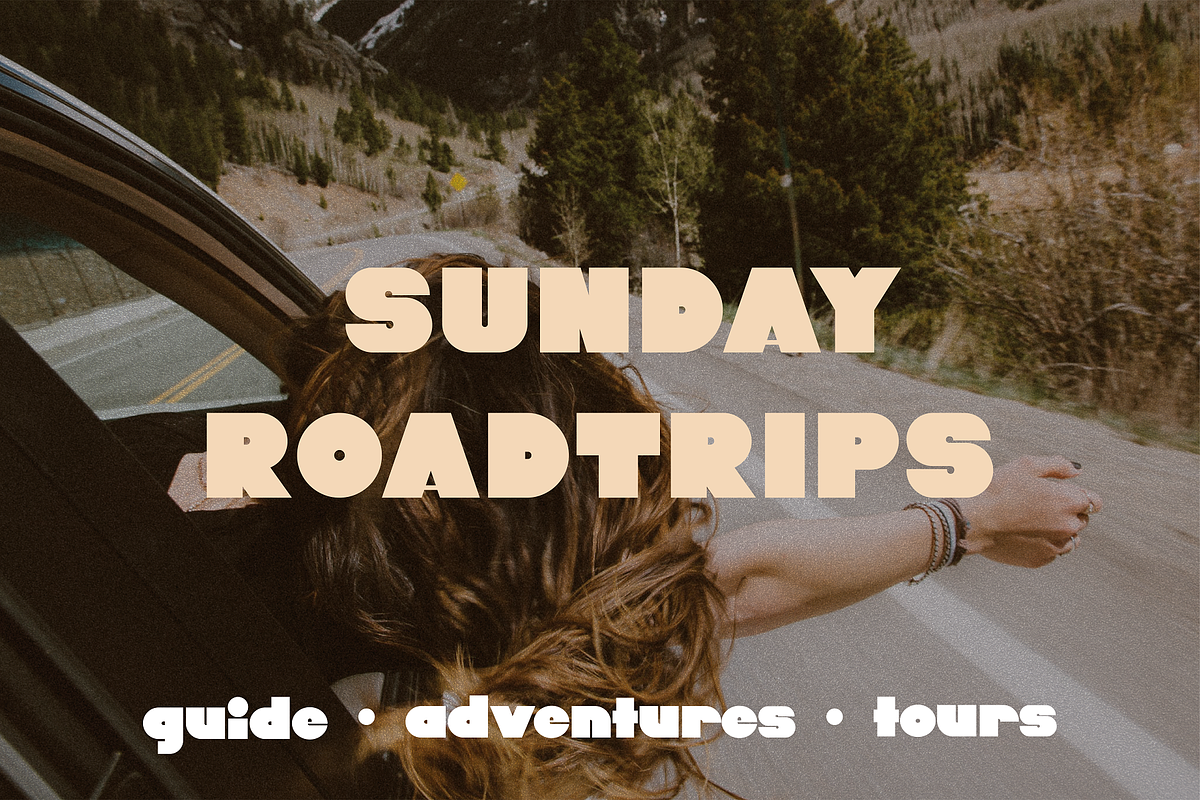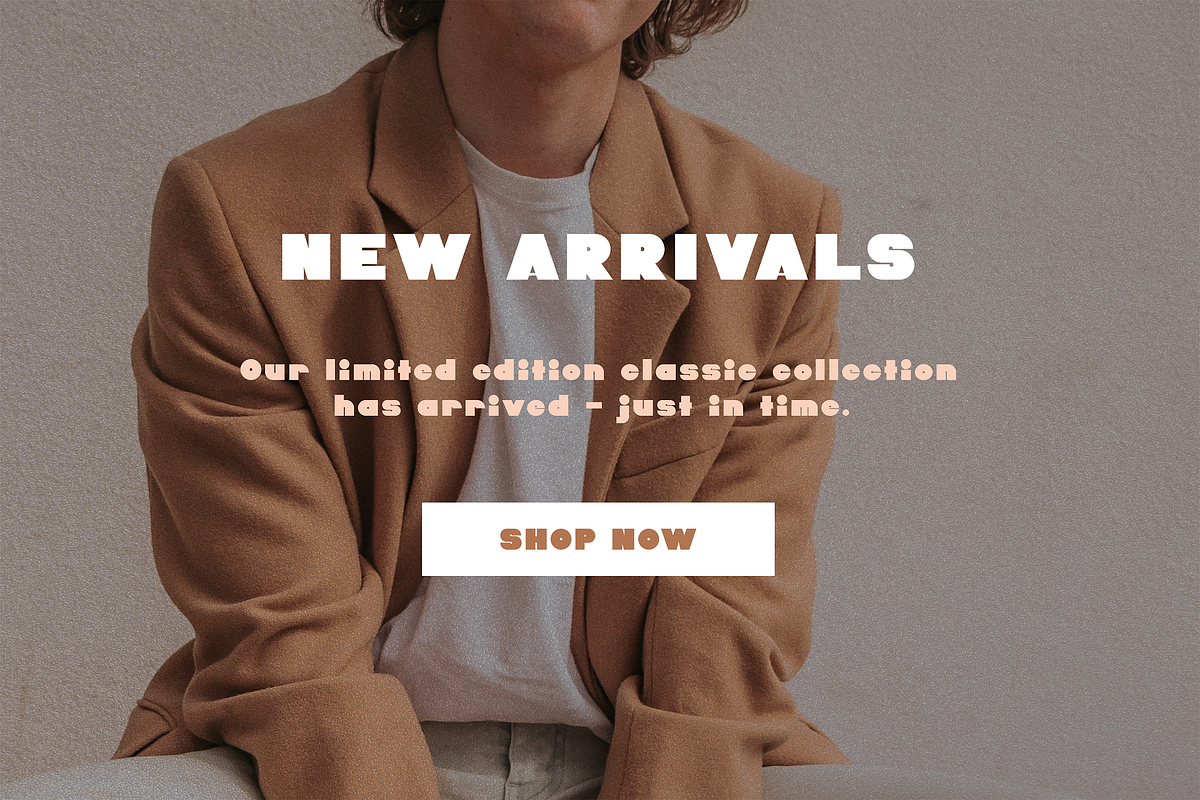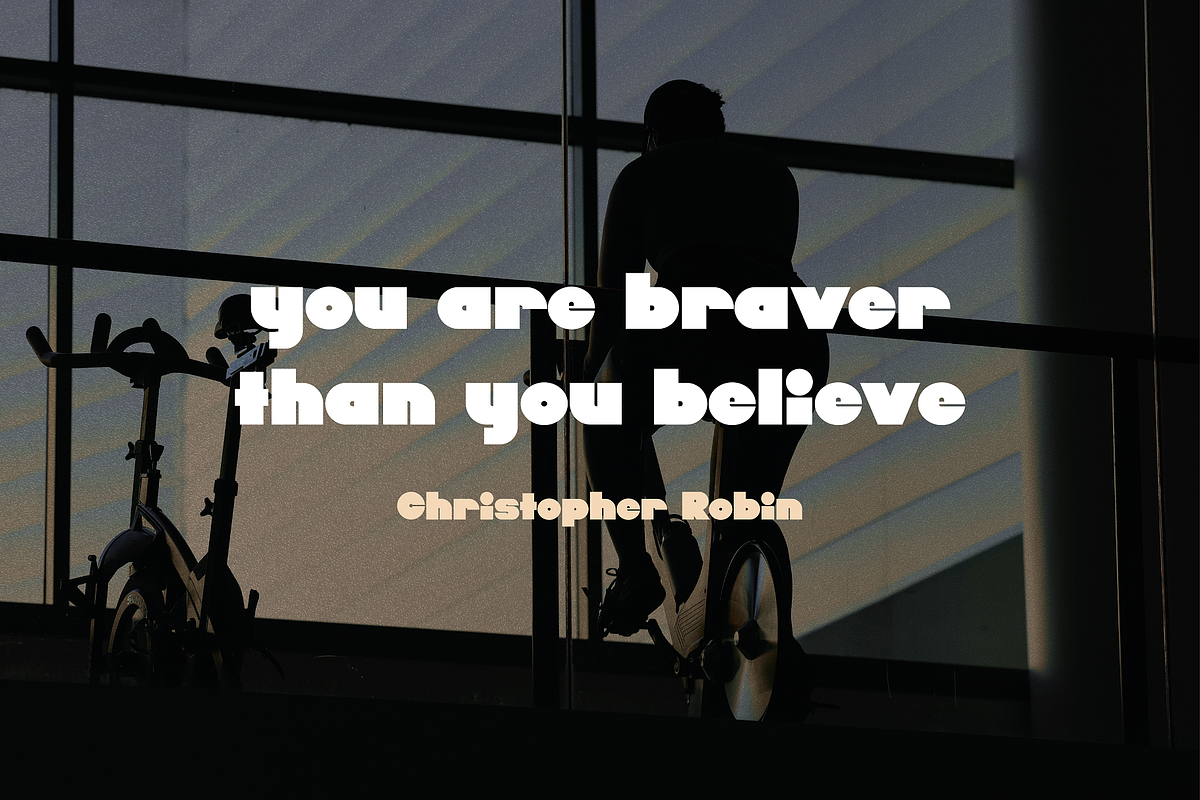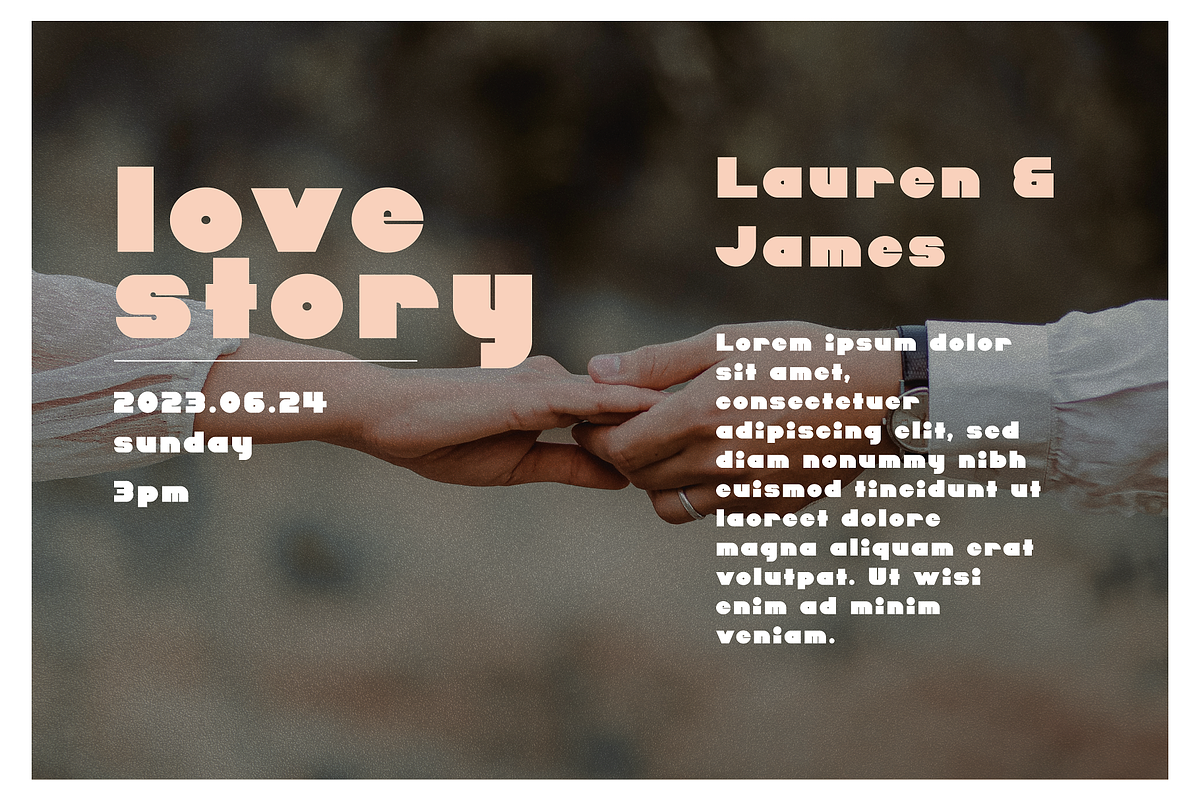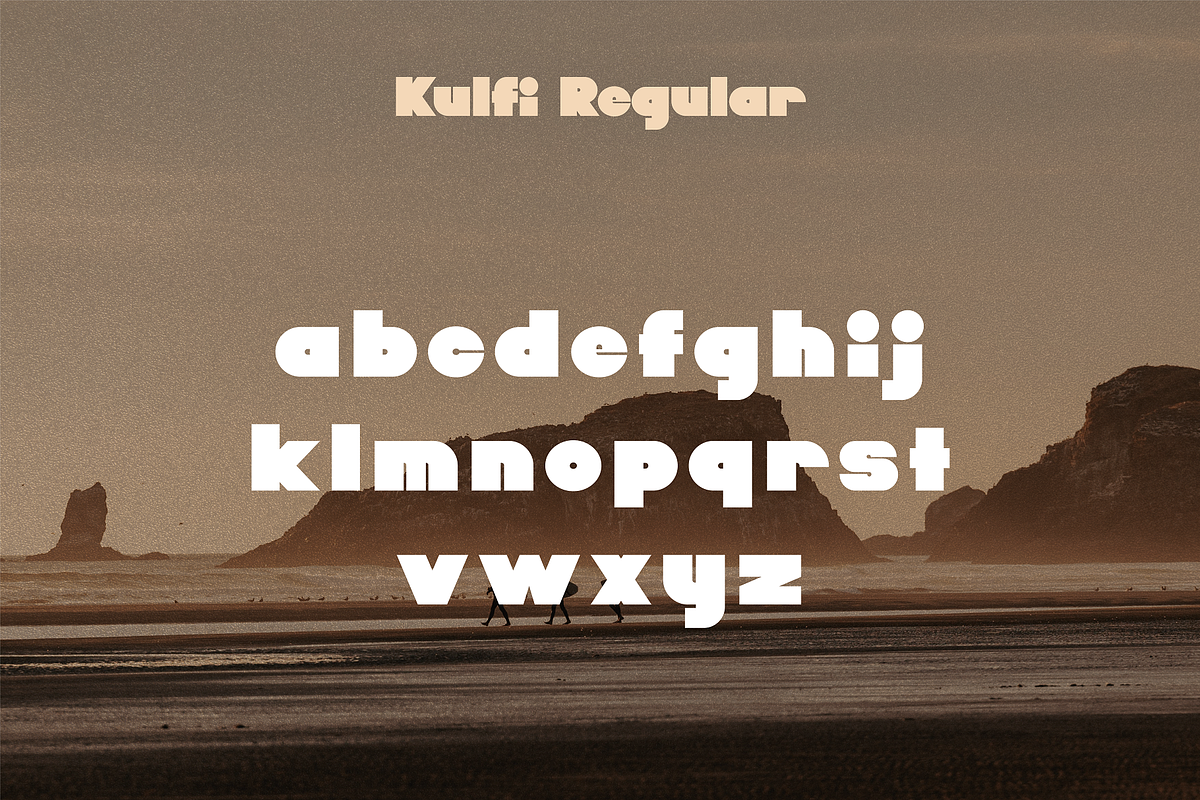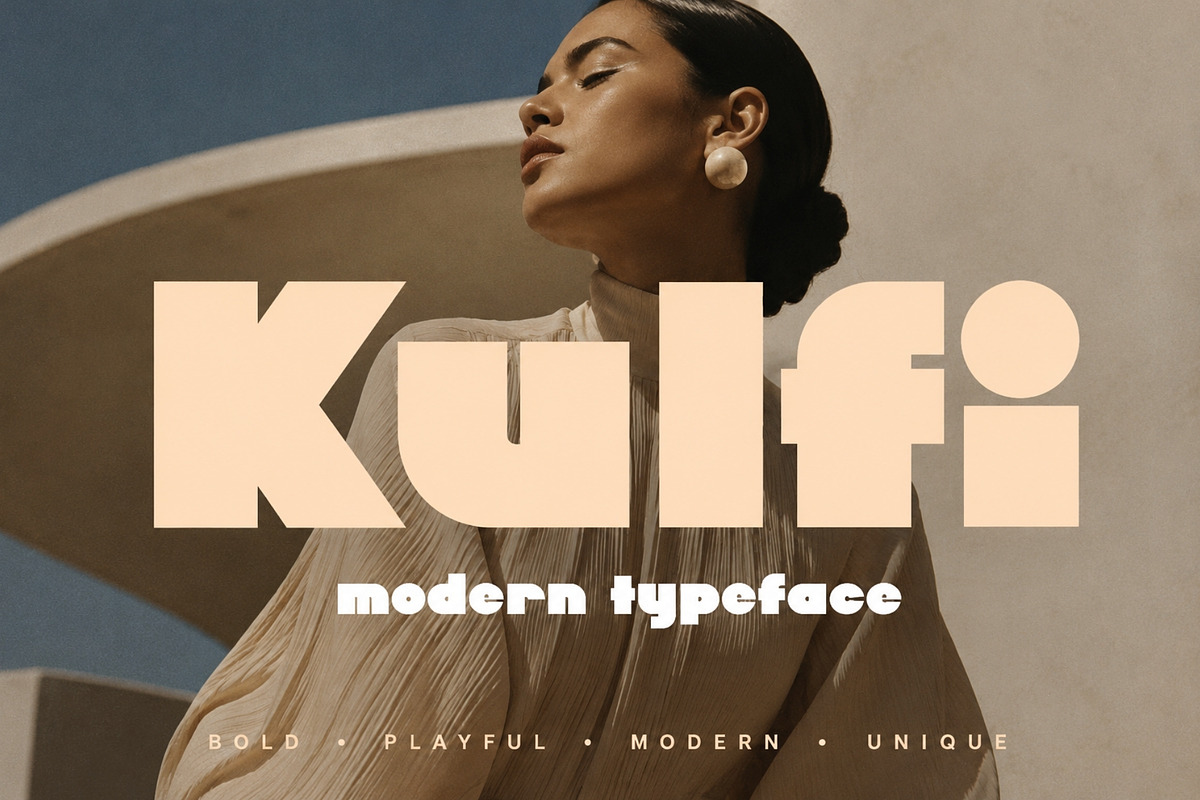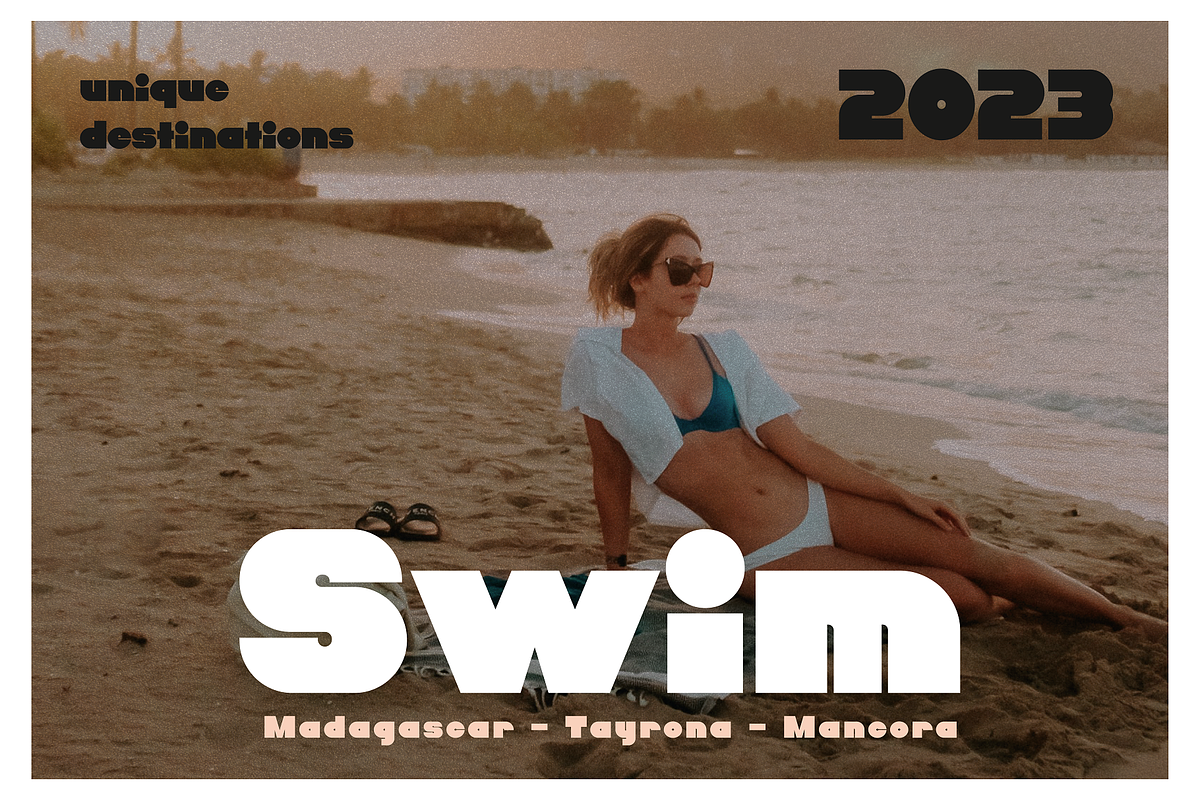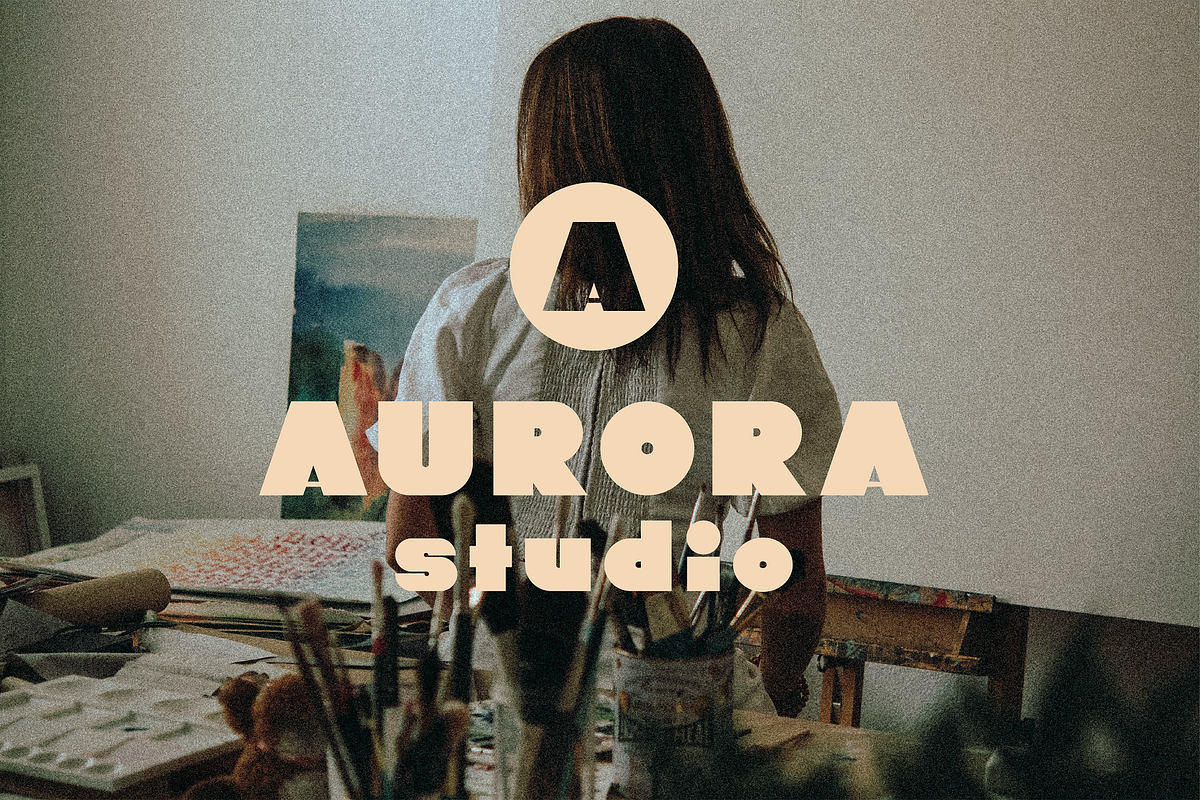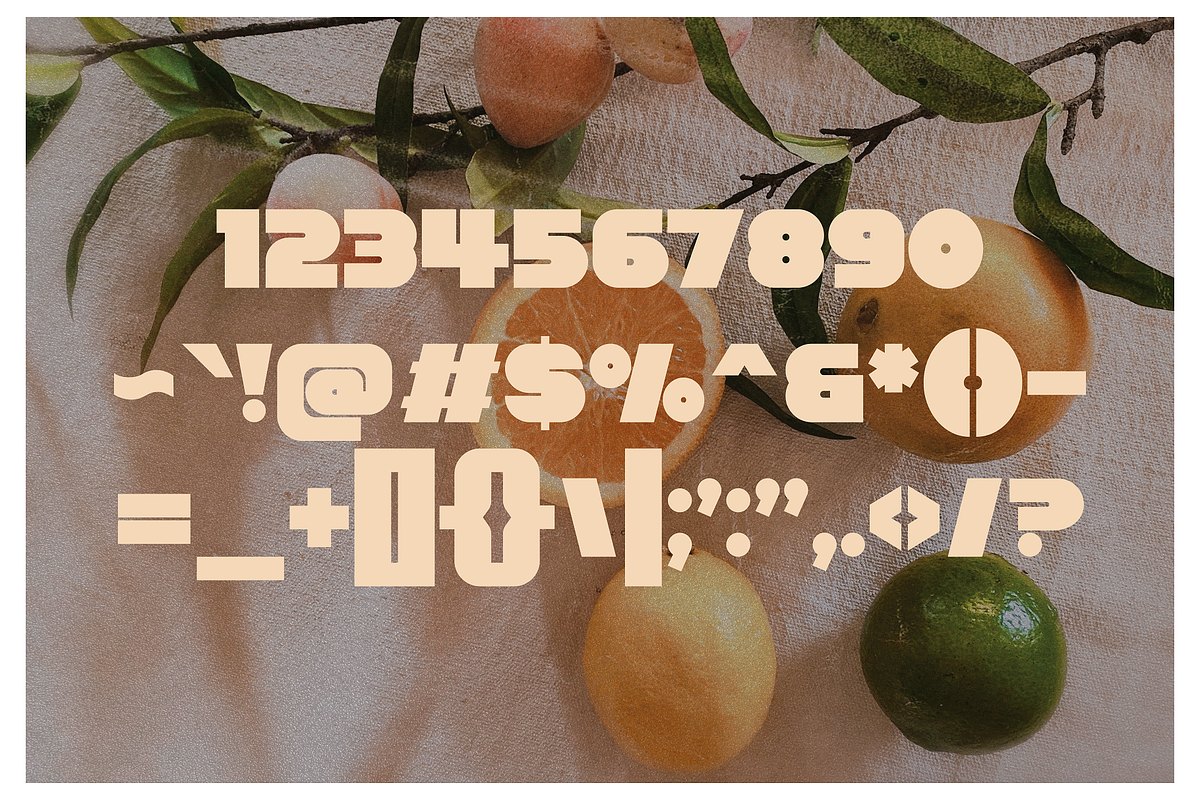
Kulfi - Jolly Display
Kulfi is a vibrant, joy-packed display typeface that brings an instant burst of personality to everything it touches. Inspired by the sweetness of its namesake, it features large rounded geometric shapes and soft, flowing lines that feel as good to look at as they do to read.
Expressive and unmistakably modern, Kulfi was made for projects that aren't afraid to smile — children's storybooks, playful packaging, toy and kid product branding, social media graphics, and headlines that demand a double-take. Its bold, rounded forms carry a warmth and approachability that generic fonts simply can't replicate.
Fun without being frivolous, Kulfi is the kind of typeface that makes a creative toolkit feel complete — the one you reach for when the brief calls for something that genuinely lights up the page.